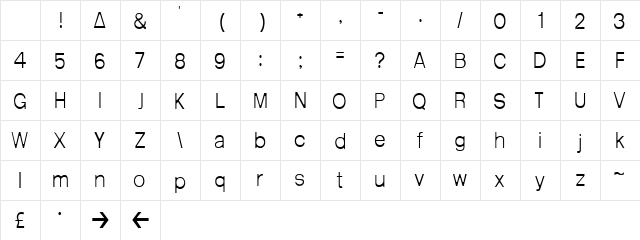
Complete Arctik 1.5 glyph index. Displaying only characters natively supported by Arctik 1.5 font.
Arctik 1.5 is a composed and adaptable typeface that performs quietly and consistently across a wide range of design contexts.
Pro Tip: Use Arctik 1.5 in both headline and body roles to test its range before committing to a single application.